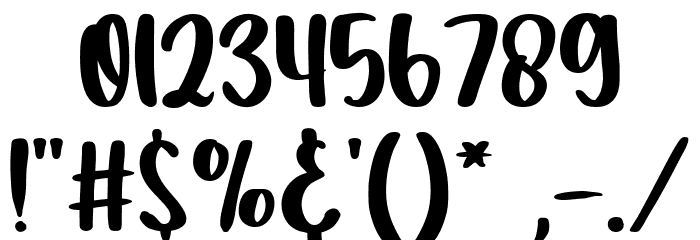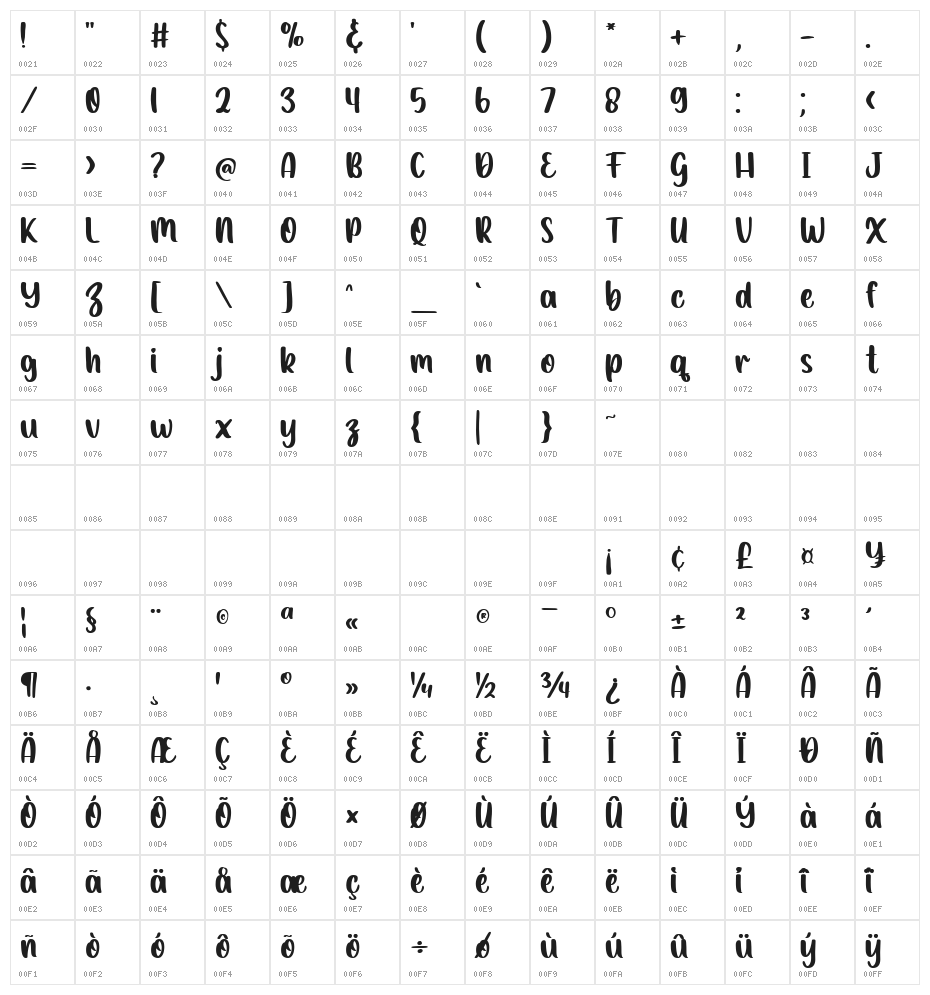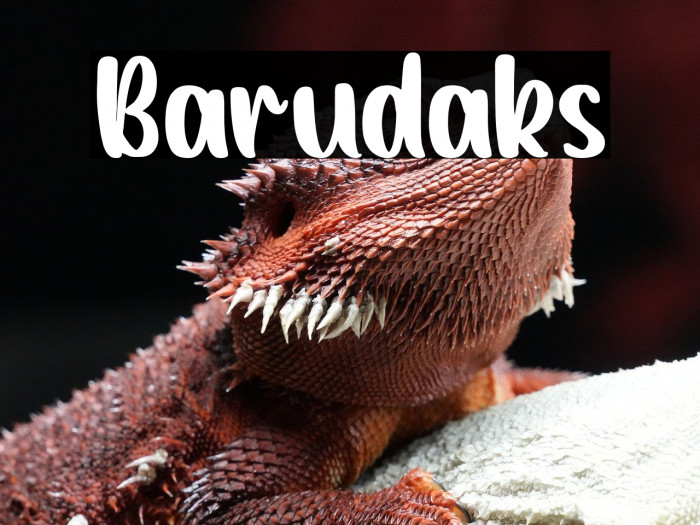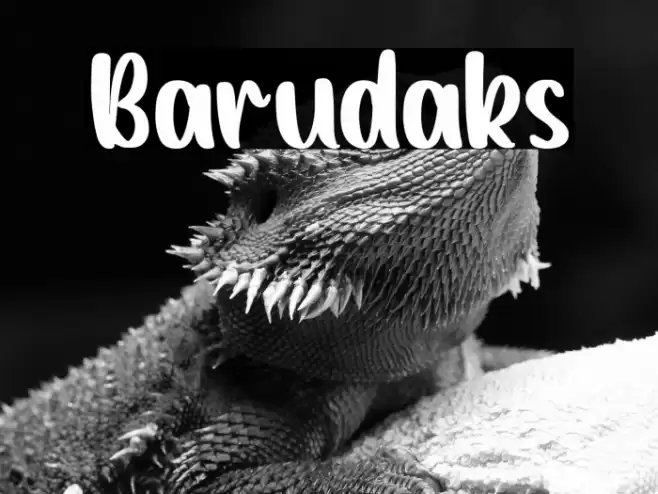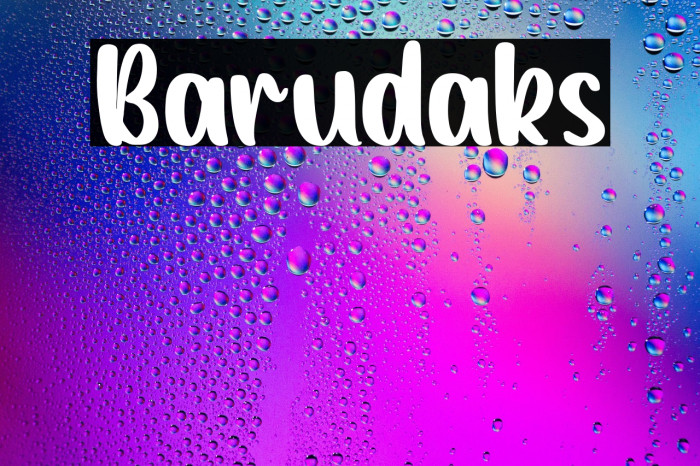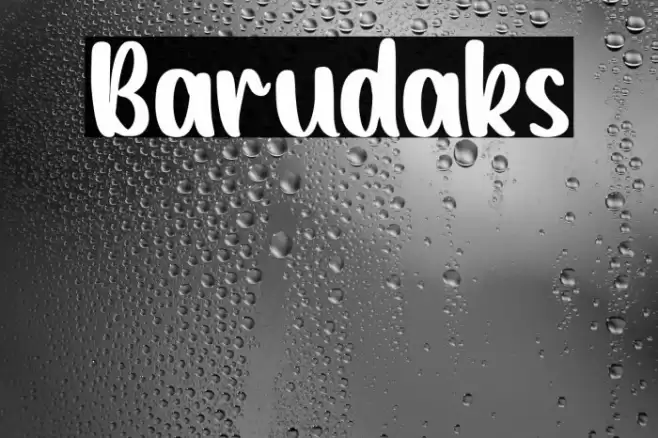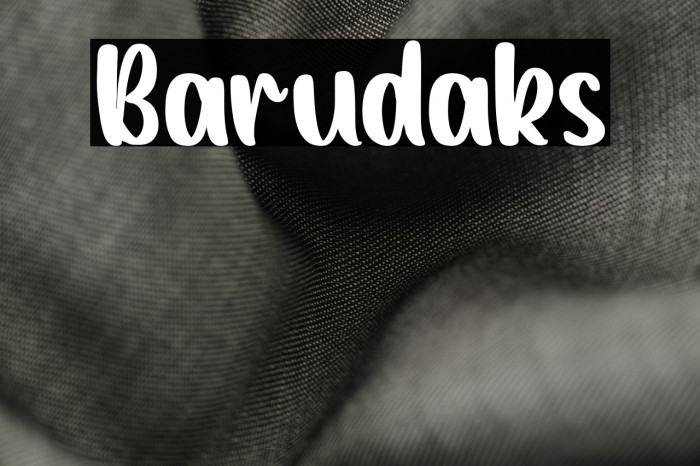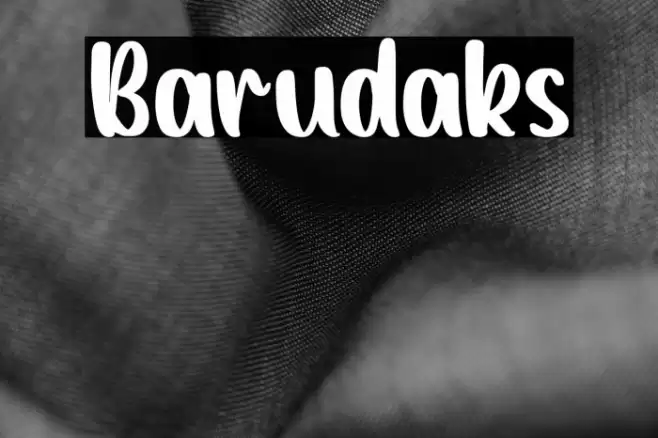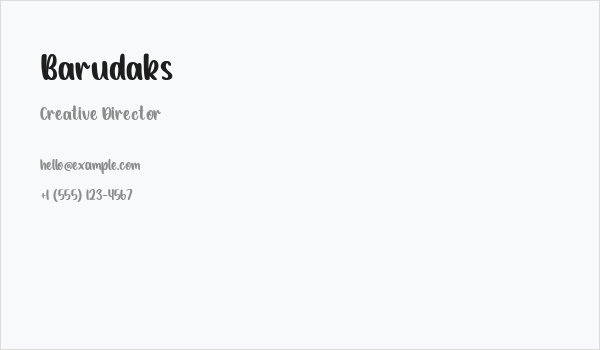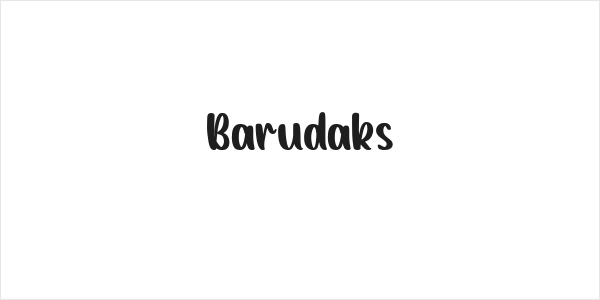
Barudaks Font
Barudaks Description
This font features a bold, playful style with a handwritten feel. The letters are rounded and slightly irregular, giving it a casual and friendly appearance. The strokes are thick and consistent, providing a strong visual impact. The uppercase and lowercase letters maintain a cohesive look, with some characters having unique flourishes that add to the font's charm. The numerals and special characters are designed to match the overall style, ensuring versatility across different uses. Its energetic and informal vibe makes it suitable for creative projects.
Overall StylePlayful, Casual
Proposed ProjectsIdeal for children's books, playful branding, greeting cards, and social media graphics.